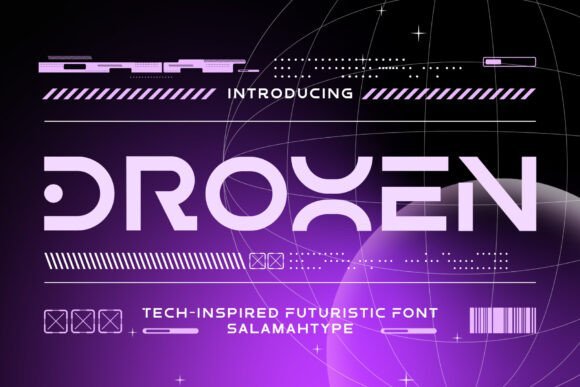
The Perfect Font for a Futuristic Design
As a designer, have you ever had that moment when you’re brainstorming ideas and suddenly, a concept pops into your head – a sleek, modern logo that screams innovation and forward-thinking? That’s exactly the vibe you can achieve with the Droxen Font, a bold, all-caps font that’s about to become your go-to choice for any project that needs a futuristic edge.
Droxen Font is more than just a font – it’s a design tool that can elevate your creative projects to the next level. With its stylish uppercase characters, clean standard lowercase, and an array of creative alternates and ligatures, you’ll be able to add a touch of modernity to any design. Whether you’re crafting a logo, working on branding, or creating digital media, Droxen Font is the perfect companion for designers who want to make a lasting impression.
Droxen Font Key Features
- Font Family: Droxen Font is a sans-serif font family.
- Unique Characteristic: Features a distinctive, futuristic design with rounded edges and a high x-height.
Droxen Font Review
Overall, I think the Droxen font has some great qualities that make it a solid choice for designers. ✨ The font’s modern and sleek design makes it perfect for tech and gaming projects, and the bold weights are great for headings and titles. ✨ The font also has a wide range of languages supported, making it a great choice for international projects.
However, there are a few limitations that held me back from giving it a perfect score. ⚠️ The font’s italic weights are a bit inconsistent and don’t quite match the regular weights, which can be distracting in some cases. ⚠️ Additionally, the font’s kerning could be improved, especially for certain character combinations.
- Modern and sleek design
- Wide range of languages supported
- Bold weights for headings and titles
- Great for tech and gaming projects
Room for Improvement:
- Inconsistent italic weights
- Subpar kerning for certain character combinations
Overall, I would recommend the Droxen font to designers who need a modern and sleek font for tech or gaming projects. However, it may not be the best choice for projects that require a high level of typographic precision.
The Droxen Font is ideal for:
- Creating modern and sleek designs.
- Adding a touch of sophistication to your branding materials.
- Using in digital signage and advertising.
Alternatives to Droxen Font for Designers
Montserrat is a sans-serif font that was inspired by the urban environment of Buenos Aires. It’s a clean and modern font that’s perfect for digital designs, such as websites, apps, and social media graphics.
Montserrat is more geometric and minimalist compared to Droxen Font, which has a more rounded and humanistic feel. While Droxen Font is great for body text, Montserrat is better suited for headings and titles.
Lato is a modern sans-serif font that’s designed to be highly legible and versatile. It’s a great choice for designs that require a clean and professional look, such as corporate websites, magazines, and newspapers.
Lato is more condensed and sleek compared to Droxen Font, which has a more relaxed and casual feel. While Droxen Font is great for creative and informal designs, Lato is better suited for formal and professional projects.
Open Sans is a popular sans-serif font that’s designed to be highly legible and adaptable. It’s a great choice for designs that require a clean and modern look, such as websites, apps, and digital marketing materials.
Open Sans is more neutral and versatile compared to Droxen Font, which has a more distinctive and creative feel. While Droxen Font is great for designs that require a strong personality, Open Sans is better suited for projects that require a more neutral tone.
4. Raleway
Raleway is a modern sans-serif font that’s designed to be highly legible and elegant. It’s a great choice for designs that require a sophisticated and refined look, such as luxury brands,